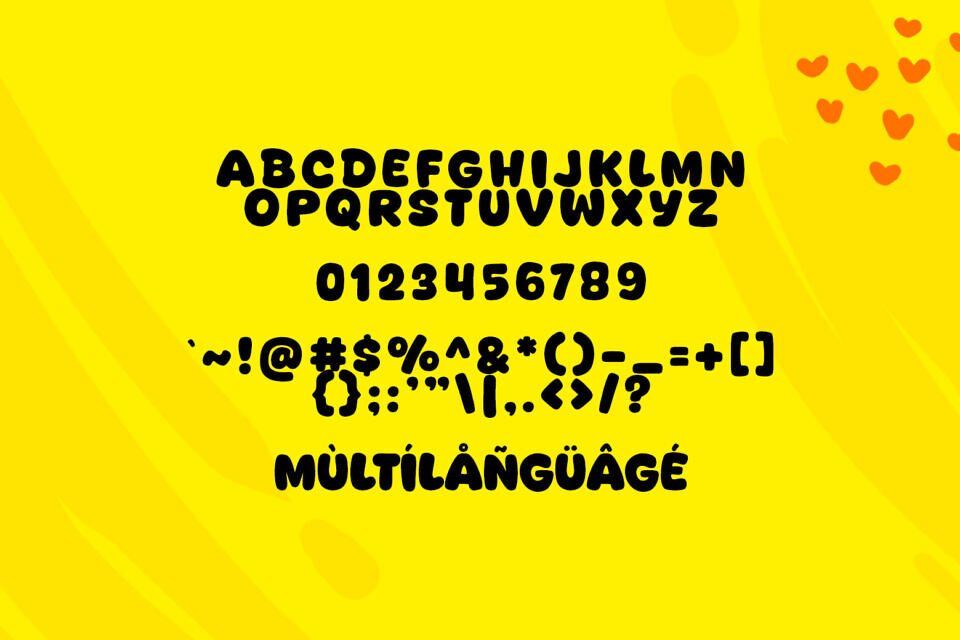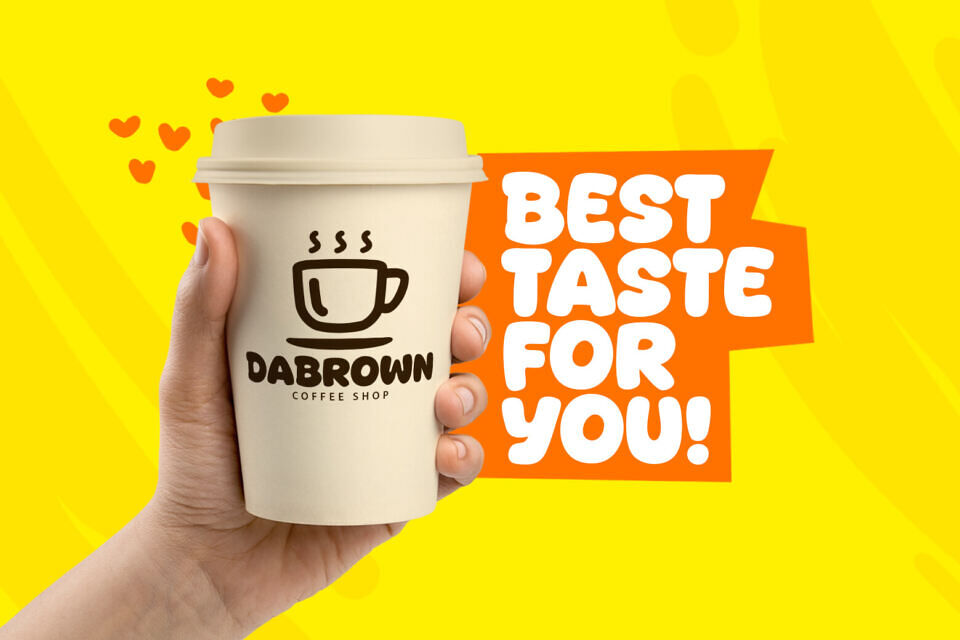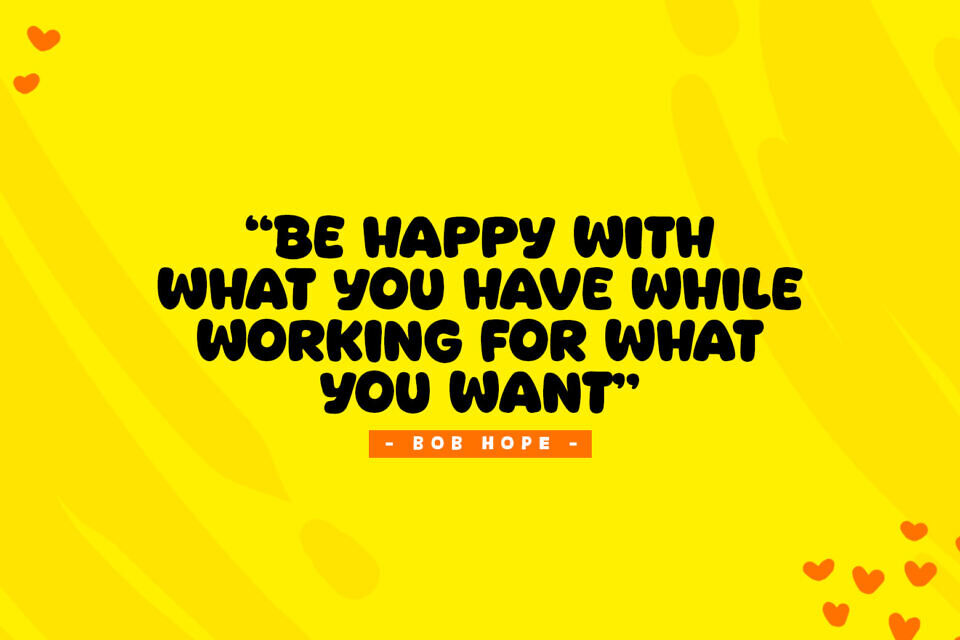
Daily Bold Font
Daily Bold is a modern and cute display font perfect for posters, logos, magazines, book covers, banners, and many more! Get this amazing font, and use it to create lovely designs.